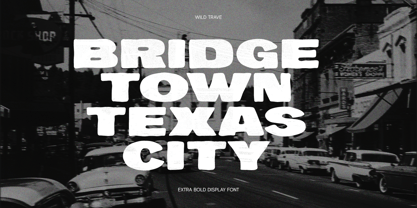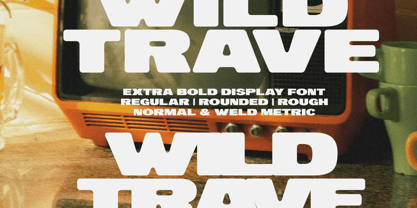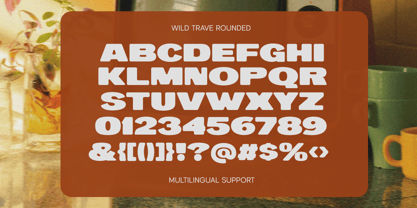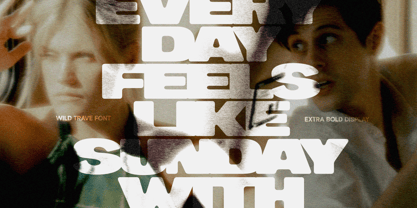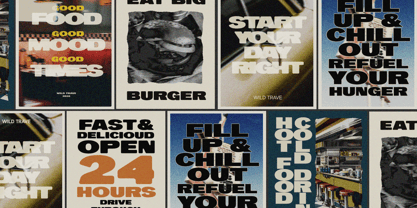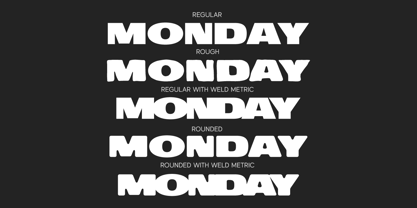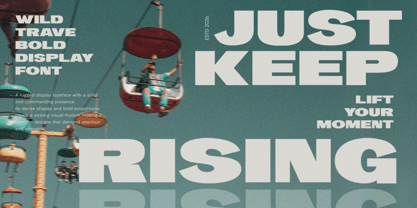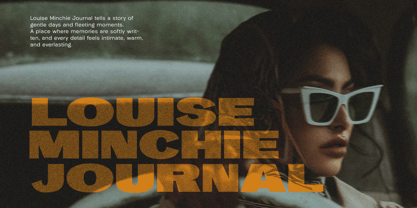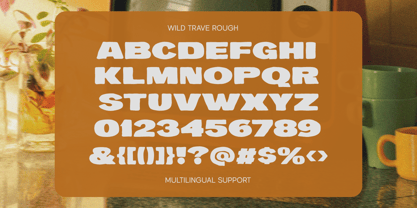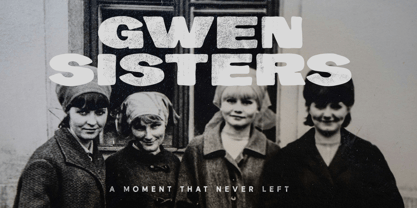
Wild Trave
by Letterhend
The Wild Trave Font Family was designed by Hendry Juanda and published by Letterhend. Wild Trave contains 5 styles and family package options. More about this family
Wild Trave comes in loud, chunky, and full of retro energy with extra bold letterforms that instantly steal the spotlight. Inspired by vintage television graphics and old-school poster styles, this display font blends smooth curves with strong geometric shapes for a look that feels playful, groovy, and confidently nostalgic.
• Uppercase & lowercase
• Numbers and punctuation
• Alternates & Ligatures
• Multilingual Support
Designers: Hendry Juanda
Foundry: Letterhend